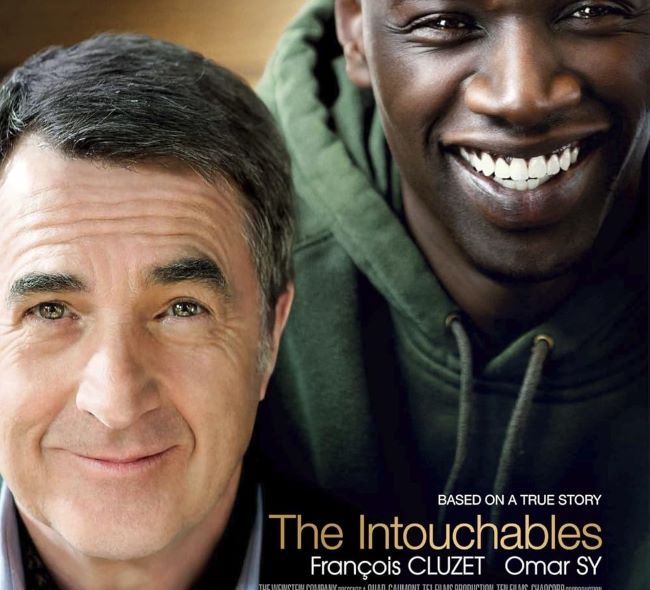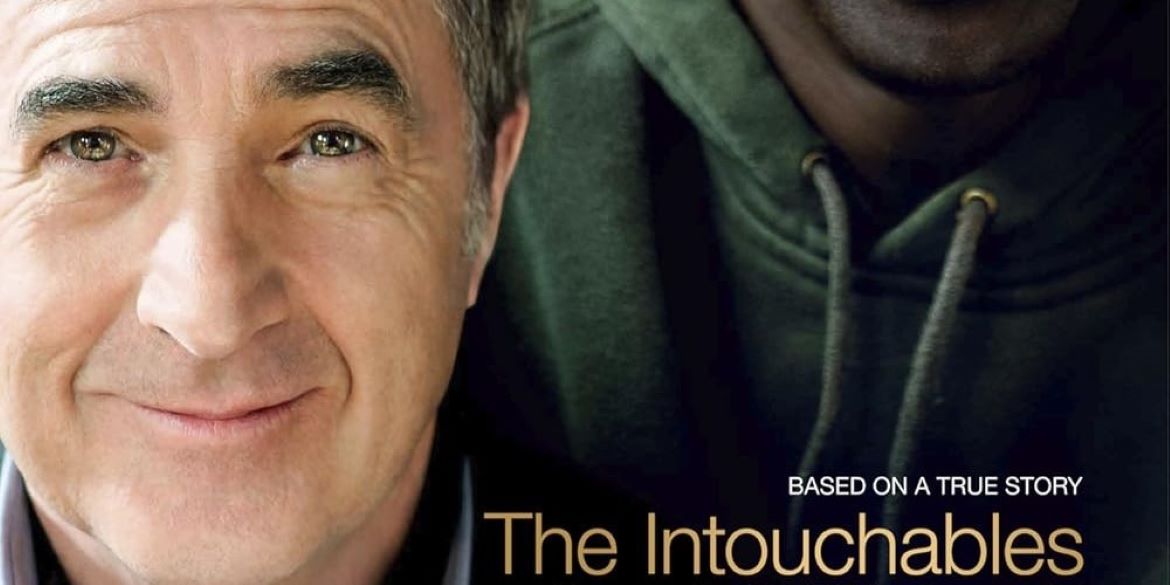
The Intouchables Font captures the warmth and emotional depth of the beloved French film The Intouchables. Reflecting the movie’s uplifting tone, this elegant typeface combines simplicity with grace, perfectly suited for a story centered on friendship, trust, and compassion. Its clean and balanced letterforms evoke a feeling of sincerity and class, making it a favorite among designers who appreciate subtle sophistication.
The Intouchables Font
Designers often turn to the Intouchables Font when they want a typeface that balances elegance and emotion. It’s ideal for posters, branding, and editorial designs that aim to convey warmth and authenticity.
Just like the film, this font leaves a quiet but powerful impression—proving that typography, when chosen thoughtfully, can express the same emotional resonance as a heartfelt story on screen.